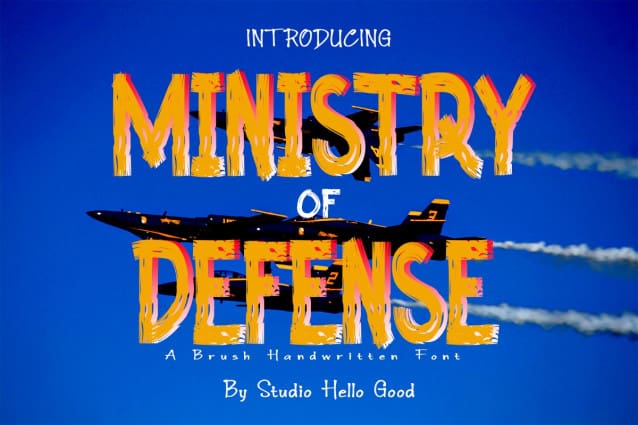
Ministry Of Defense Font
Ministry Of Defense Font is a friendly, brush stroke font that looks at home in a wide range of designs! This font is a dry brush stroke script, and can give your designs an elegant yet completely modern look.